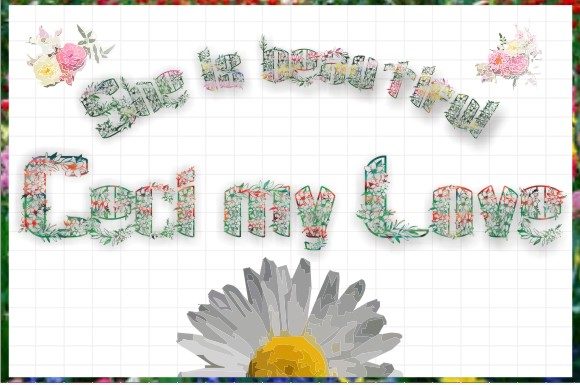
Introducing Ceci My Love, the font that will ignite your imagination and add a touch of whimsy to all your creations! This decorative font is perfect for those seeking to infuse their designs with a unique and playful character. Its charming curves and quirky details will elevate your projects to new heights, making them stand out from the crowd.
With Ceci My Love, you'll have the power to transform ordinary text into extraordinary works of art. Whether you're designing invitations, greeting cards, or social media graphics, this font will add a touch of magic to each and every one. Unleash your creativity and let Ceci My Love guide you on a journey of artistic expression.
So why settle for ordinary fonts when you can embrace the extraordinary? Download Ceci My Love today and let your imagination soar! Its playful personality and captivating charm will add a spark of joy to all your endeavors, making them truly unforgettable. Let Ceci My Love be the font that brings your creative visions to life!